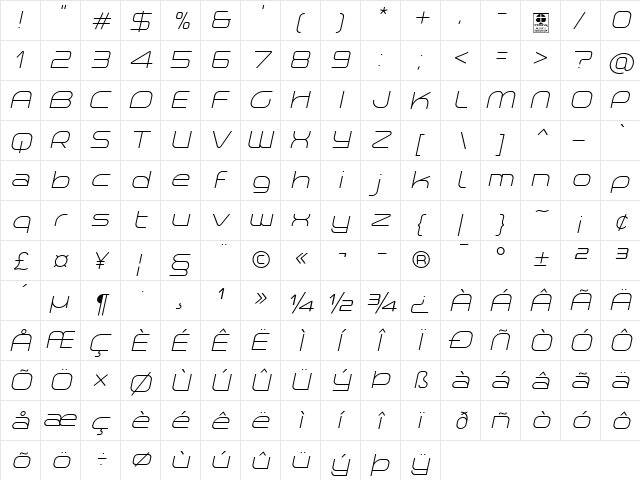
Planetium-X Light Italic Demo Regular Font Preview
| Foundry | StudioTypo |
| Designer | Mehmet Abac |
Design Context for Planetium-X Light Italic Demo Typeface
Planetium-X Light Italic Demo offers clean, dependable letterforms without strong stylistic allegiance, making it a practical choice for designers who need flexibility. Its italic angle brings a sense of urgency and motion to the letterforms. Its slender proportions lend an understated elegance to any composition.
Pro Tip: Use Planetium-X Light Italic Demo for emphasis, pull quotes, and subheadings where its slanted energy can add rhythm to the layout.